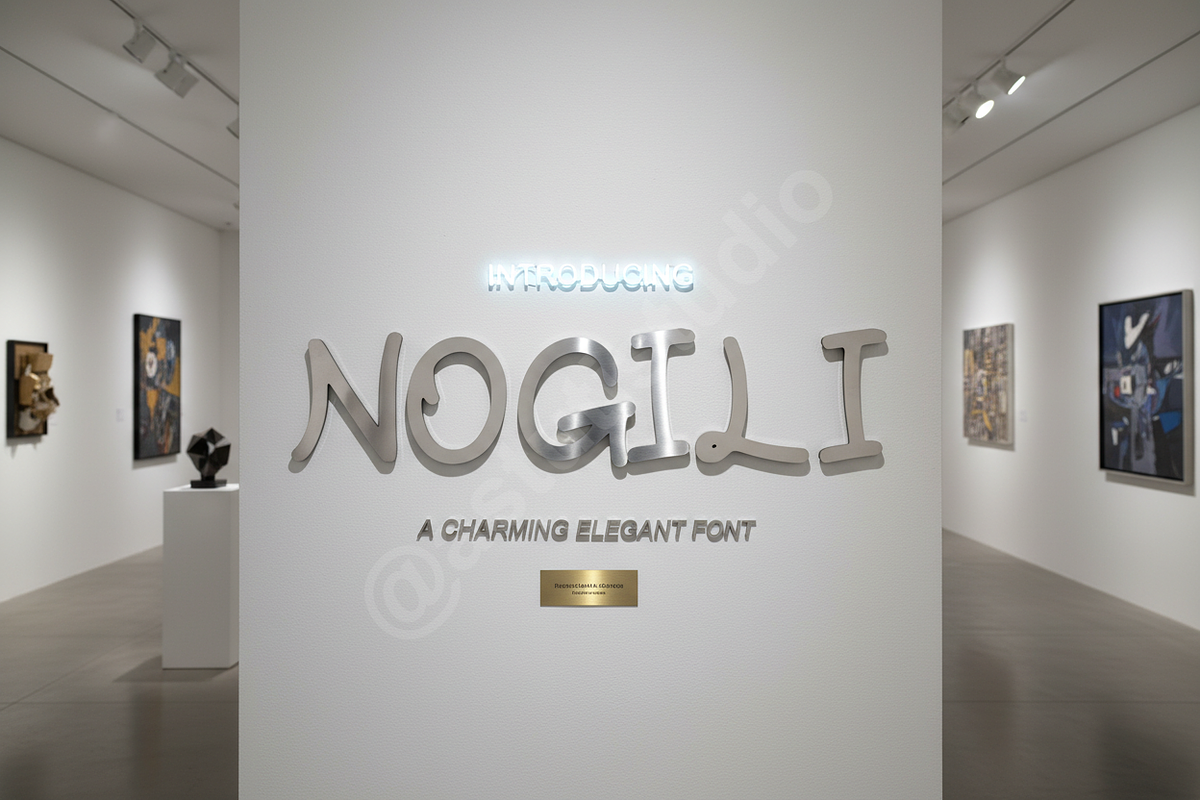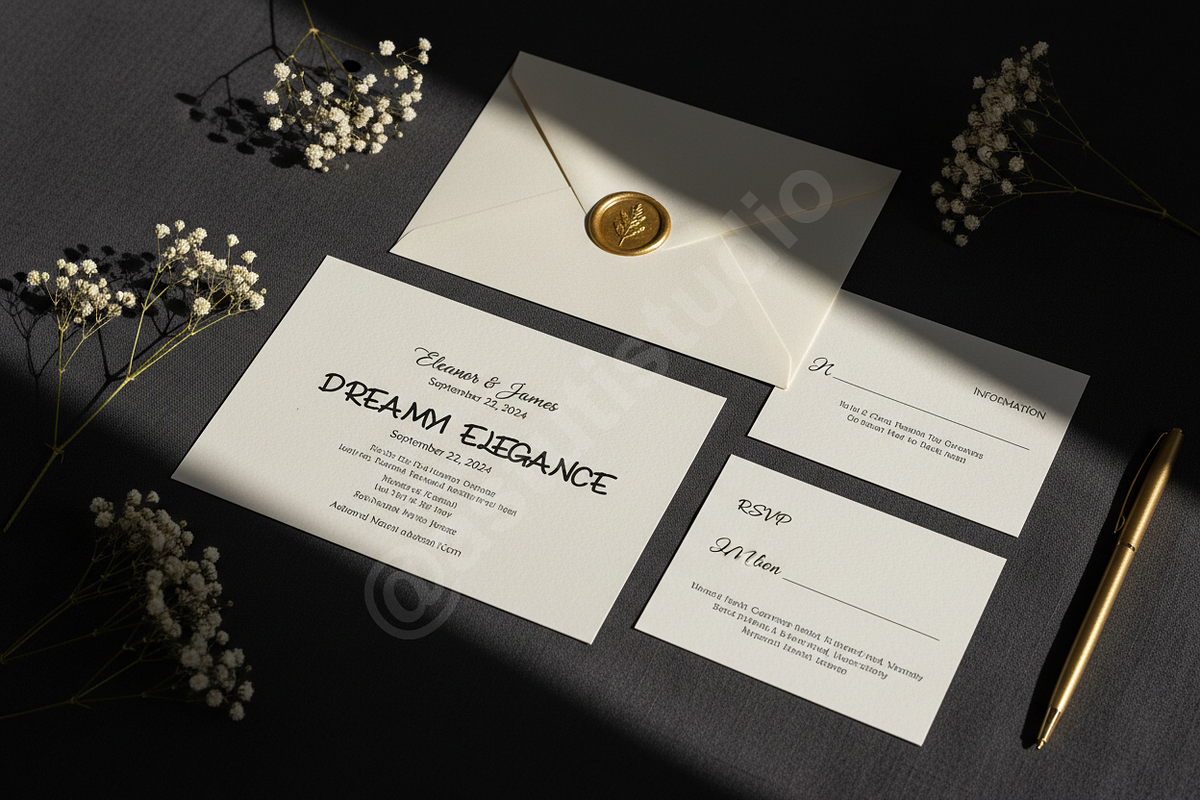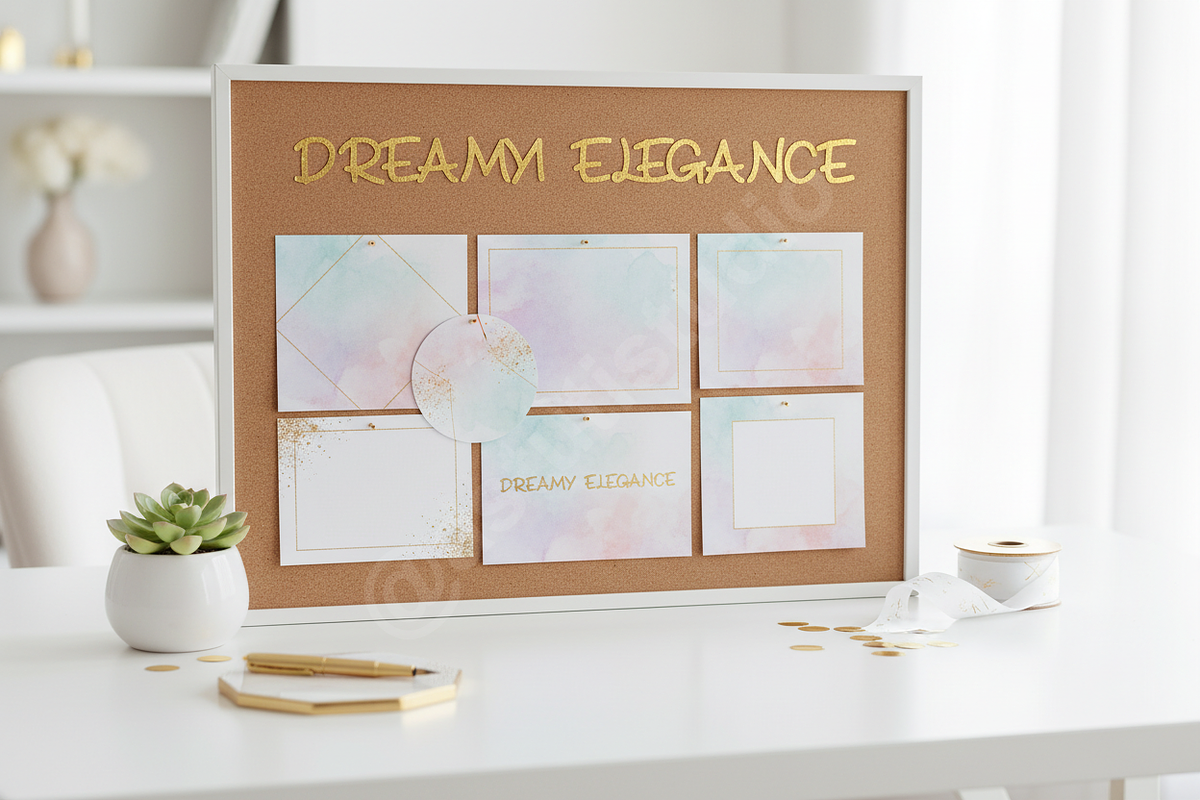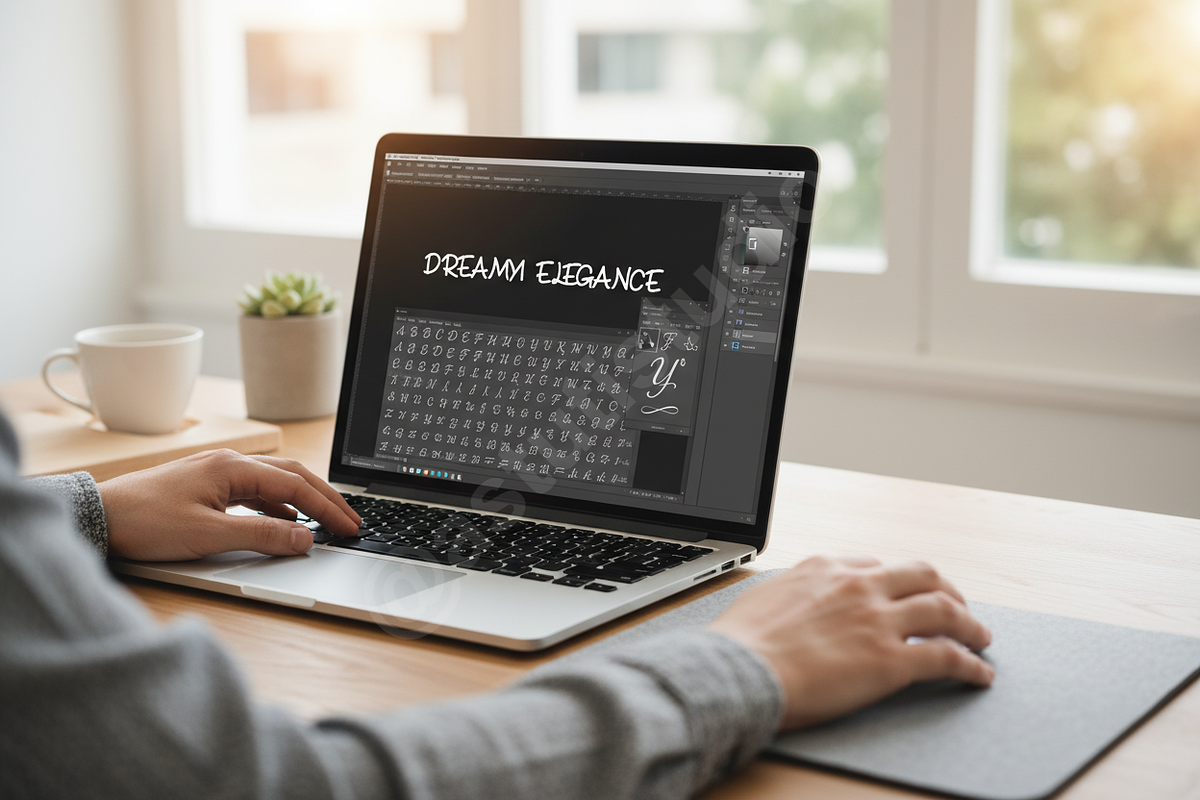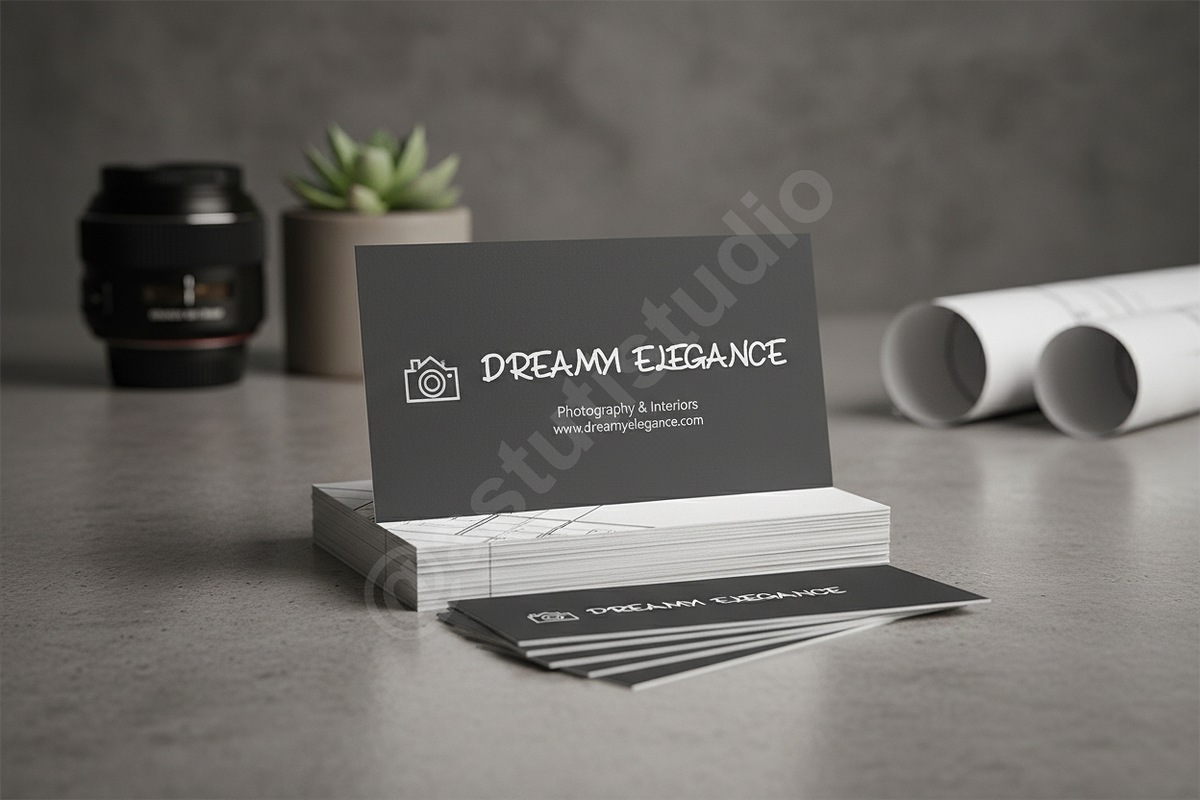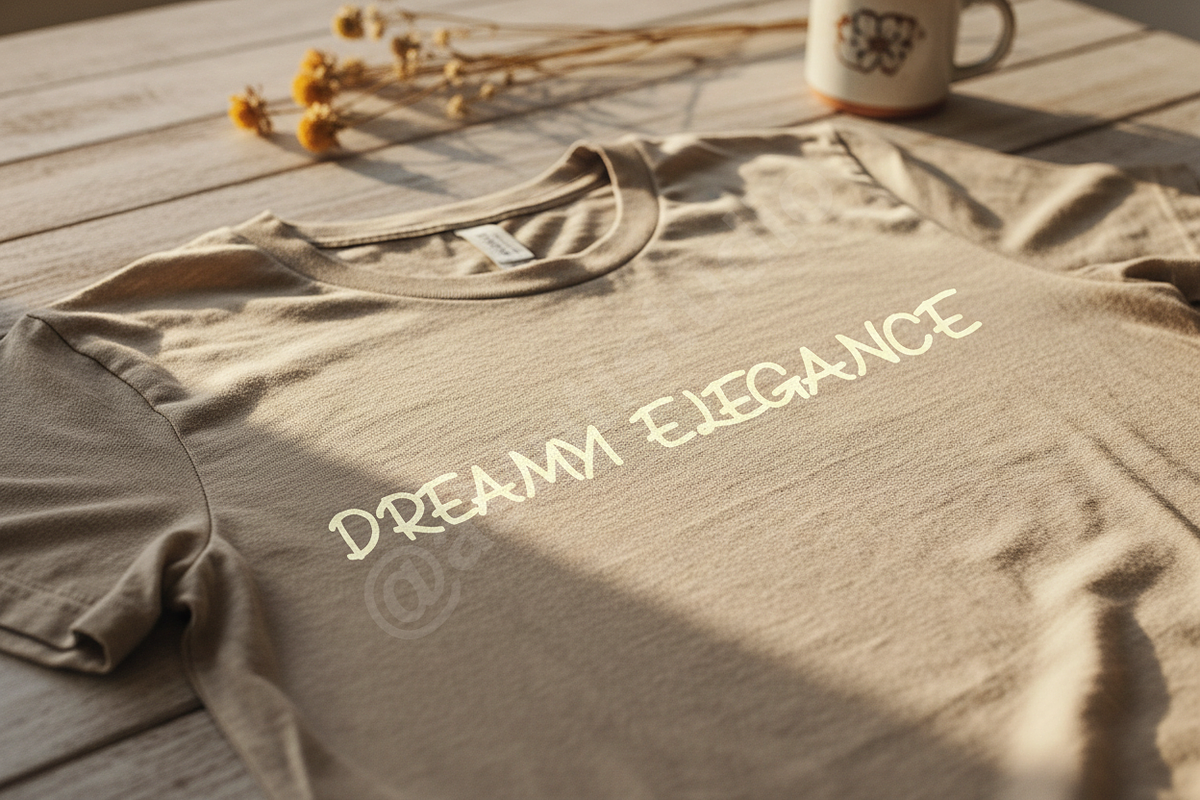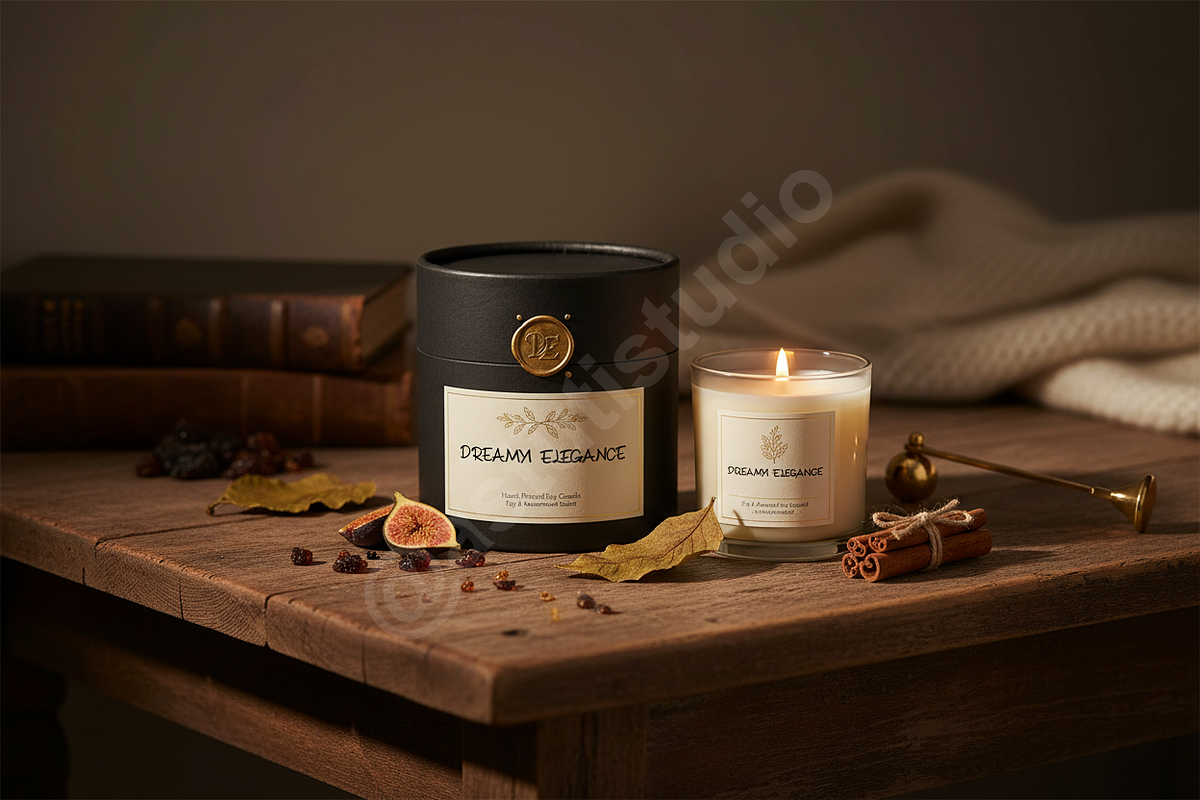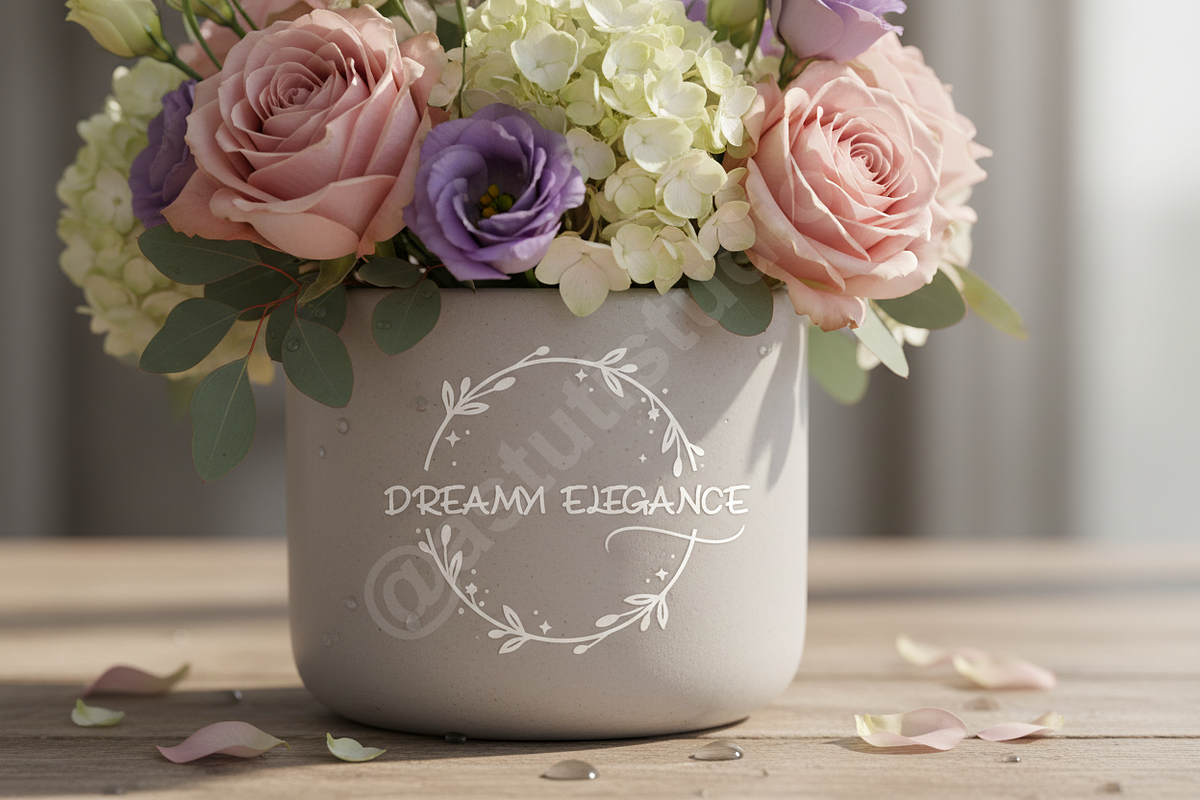
Nogili - A Modern Luxury Serif Typef
INTRODUCTION
Nogili is a sophisticated serif font meticulously crafted for high-end aesthetic projects. Drawing inspiration from timeless European editorial design, it balances sharp terminals with elegant curves to create a typeface that feels both classic and contemporary. Whether you are developing a premium brand identity or designing a high-fashion layout, Nogili provides the refined presence your work deserves.
IDEAL FOR
- Luxury Branding & Visual Identity
- Editorial Layouts & Magazine Design
- Sophisticated Social Media Content
- High-End Packaging & Stationery
- Elegant Website Headers
- Precise, high-contrast serif details
- Extensive ligature sets for unique typography
- Multilingual support for global reach
- Optimized kerning for professional readability
- Clean, balanced letterforms for a premium feel